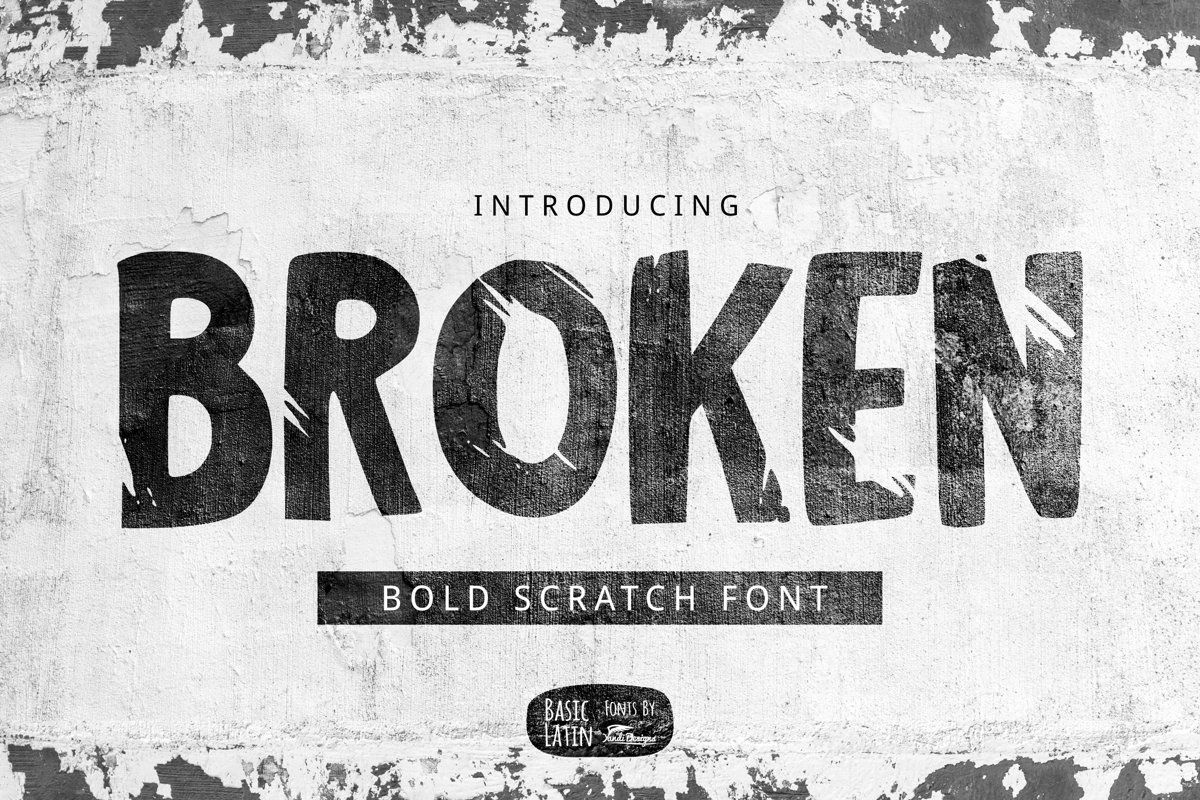
Broken Font
Broken font is simple uppercase, bold scratch multipurpose handwritten font , suitable for many project children book, quotes, logo , heading , title etc.